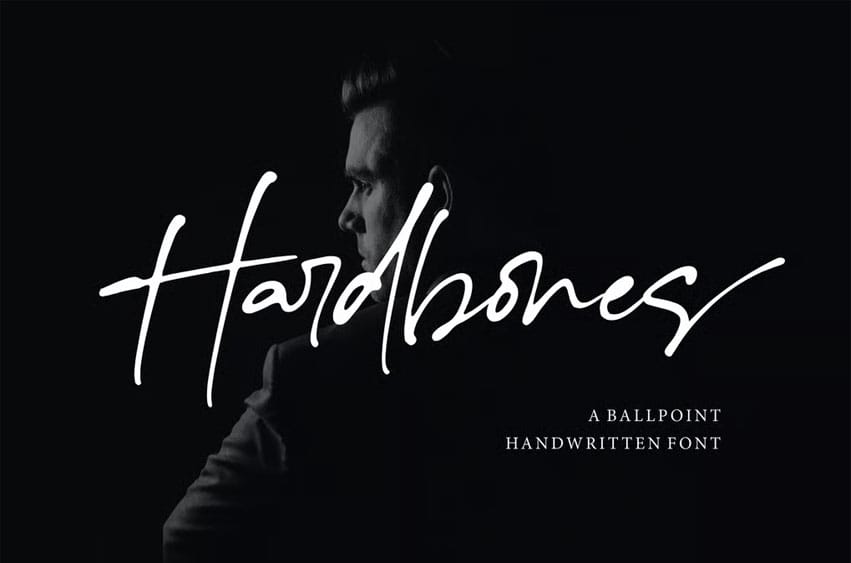
Hardbones Font is a bold, expressive ballpoint handwritten font that combines raw energy with refined elegance. Its strong, confident strokes are inspired by authentic pen writing, creating a look that feels personal yet powerful. Designed for impactful branding, logos, editorial titles, and masculine product packaging, Hardbones balances spontaneity with precision.
Each letter flows naturally while maintaining a solid structure — perfect for modern entrepreneurs, creatives, and luxury brands who want a handwritten touch that commands attention. The font includes uppercase, lowercase, numerals, punctuation, ligatures, and multilingual support.